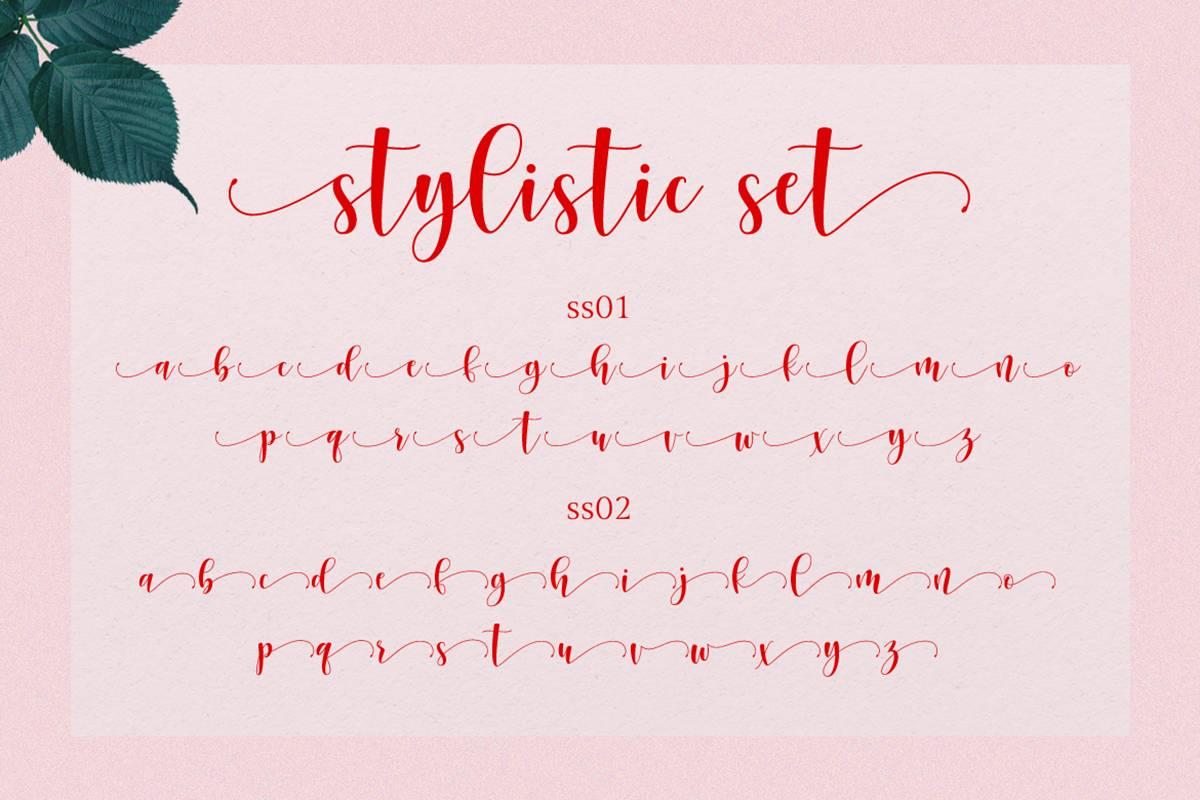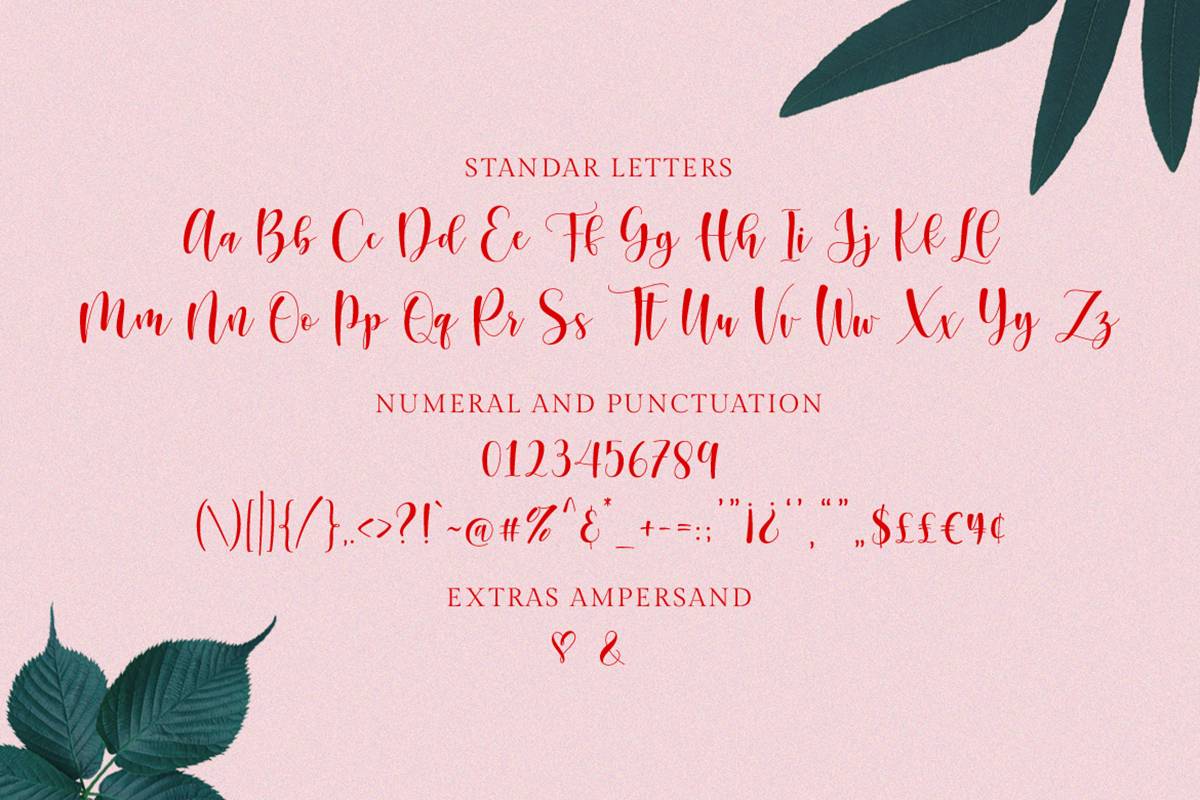
Sunberry is an elegant script font featuring flowing, calligraphic strokes with a graceful contrast between thick and thin lines. Its playful yet refined character makes it ideal for luxury branding, invitations, and stylish headlines that require a personal and sophisticated touch. This font shines in designs where beauty and a handcrafted feel are paramount.
Sunberry Font
About Sunberry Font
| Font family | Sunberry Font |
| Designer | Ef Studio - Luthfi Fauzi - Purwakarta(INA) |